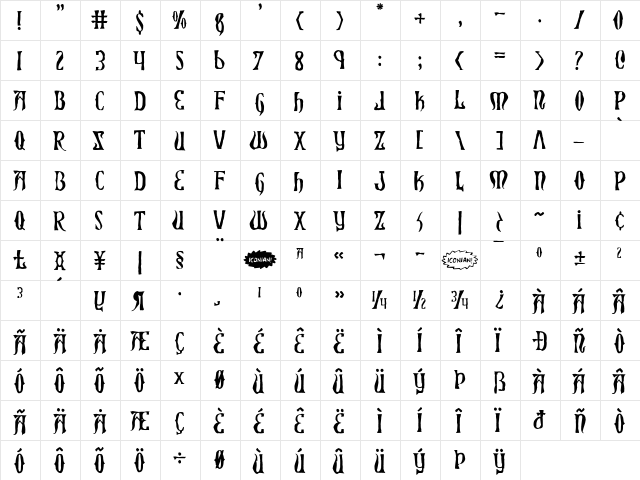
Xiphos Horror Horror
Design Context for Xiphos Horror Typeface
Xiphos Horror leans into the macabre with letterforms designed to disturb and intrigue in equal measure.
Perfect for anything that needs to unsettle — game titles, horror branding, and macabre invitations.
Font Pairing: Pair with a clean neutral sans-serif for body copy to let Xiphos Horror's character lead without overwhelming the composition.
Pro Tip: Use Xiphos Horror at larger display sizes for maximum impact. Consider generous tracking to let the disturbing character of each letterform breathe.